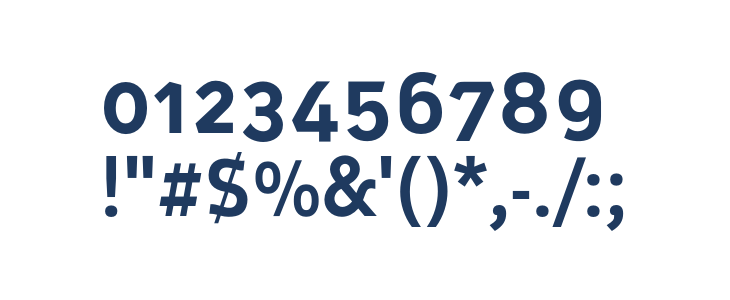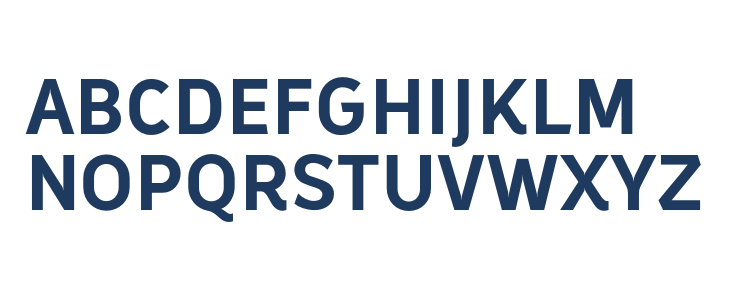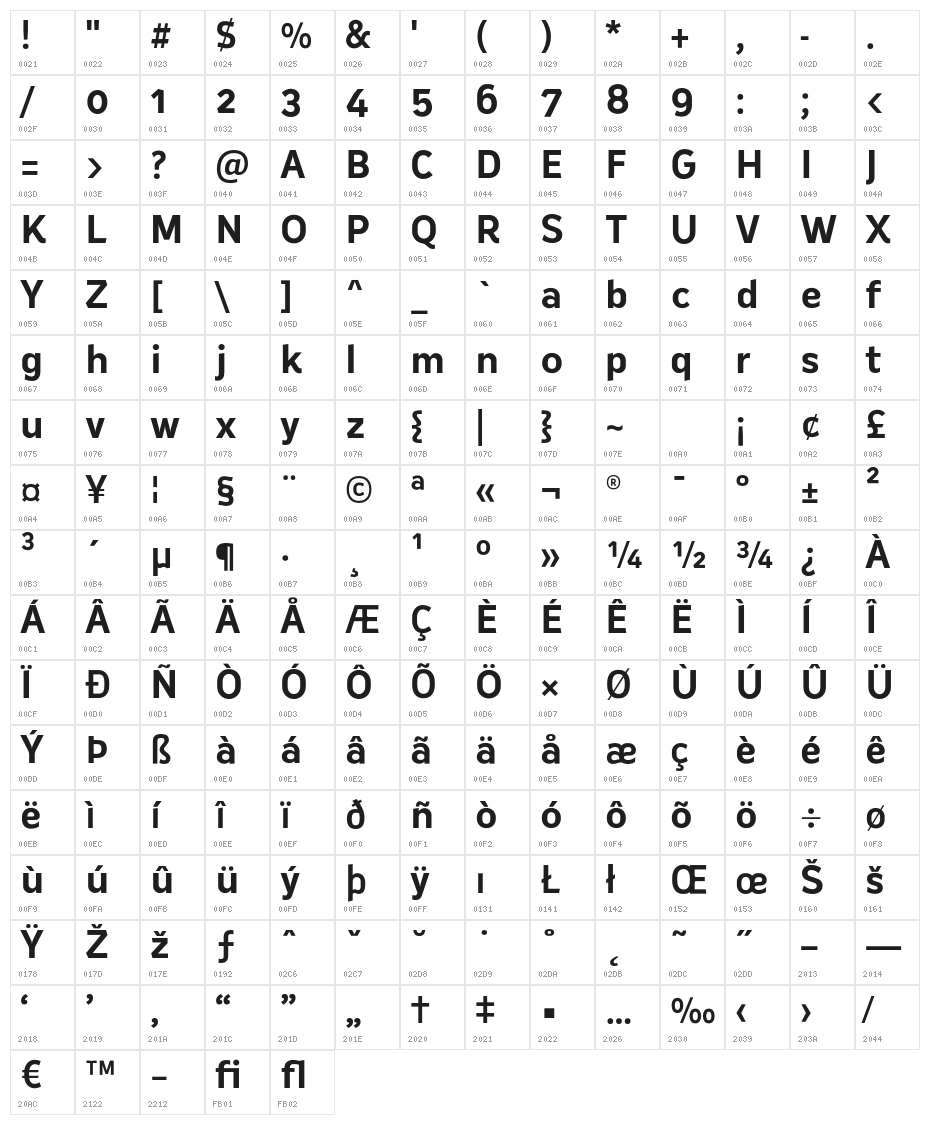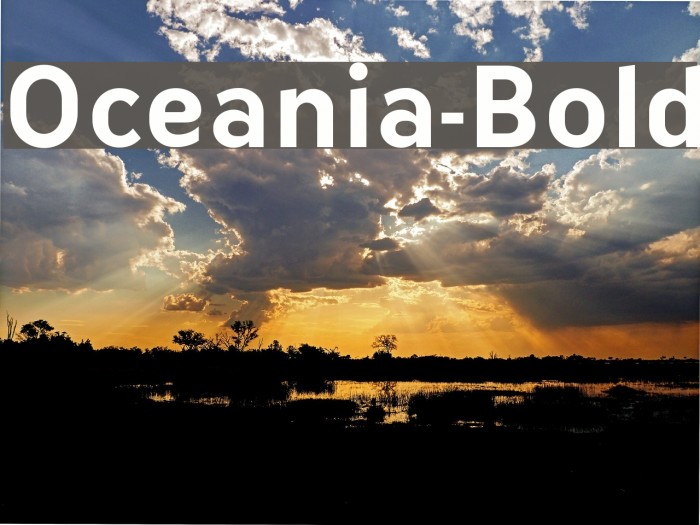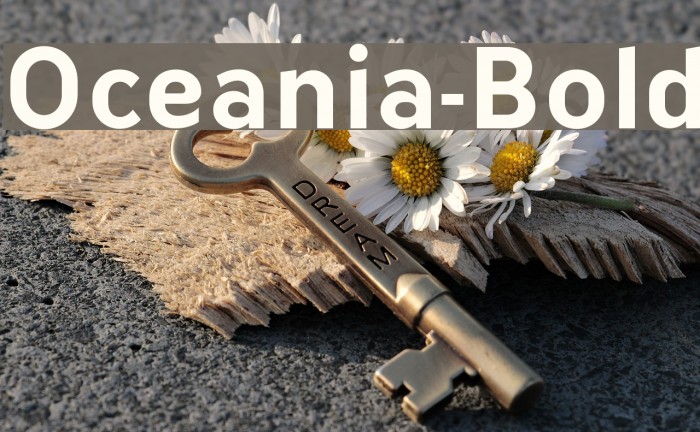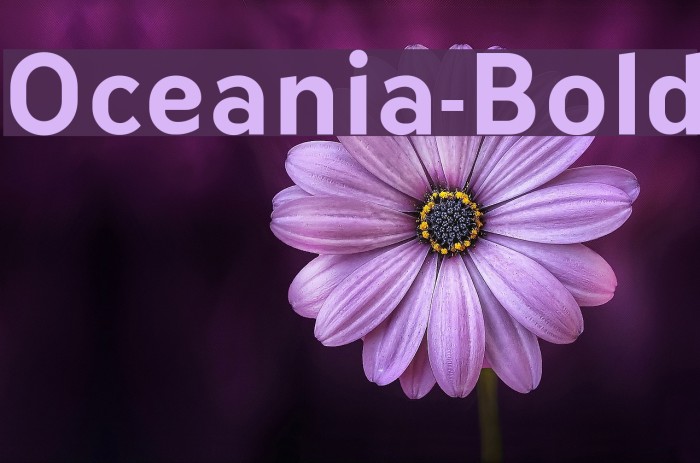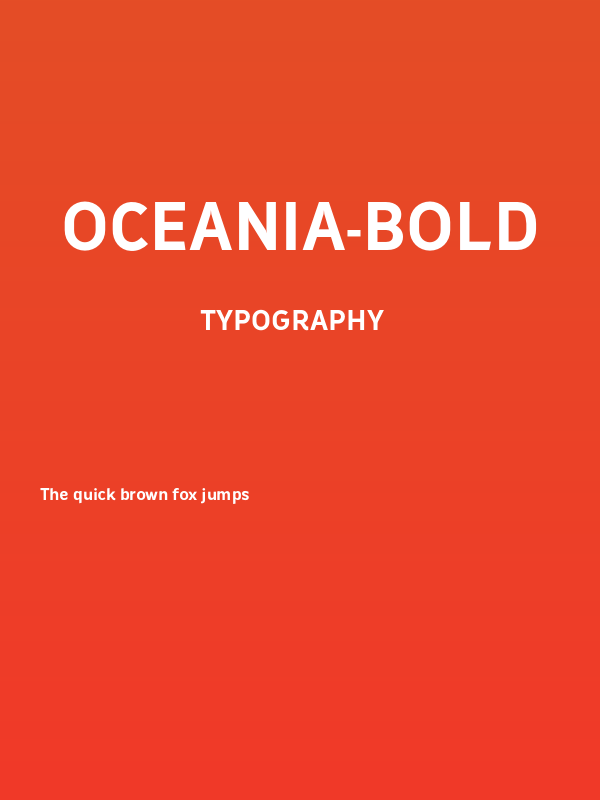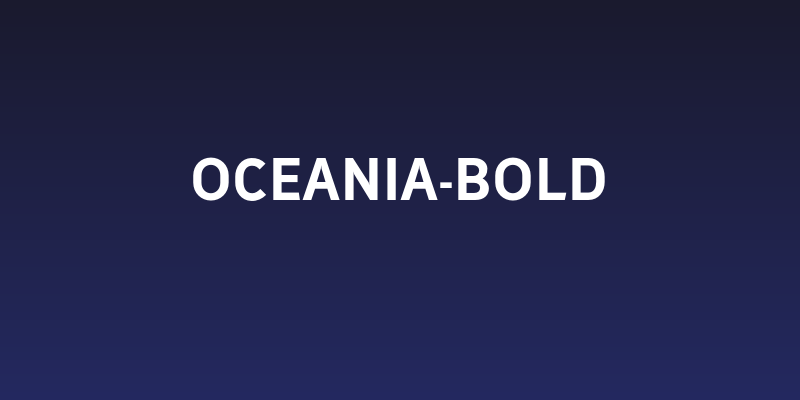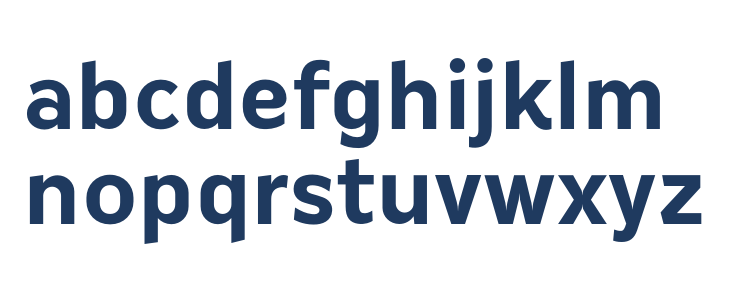
Oceania-Bold Font
Oceania-Bold Description
This font exhibits a bold and modern sans-serif style, characterized by clean lines and a strong presence. The uppercase and lowercase letters are well-proportioned, with a consistent stroke width that provides a uniform appearance. The numerals are clear and easily distinguishable, making them suitable for various applications. Special characters are included, maintaining the same boldness and clarity as the alphanumeric characters. This font's design is straightforward yet impactful, making it versatile for both digital and print media.
| Use Case | Headlines, Logos, Advertising |
| Proposed Projects | Ideal for branding, advertising, headlines, and digital content where a bold statement is needed. |